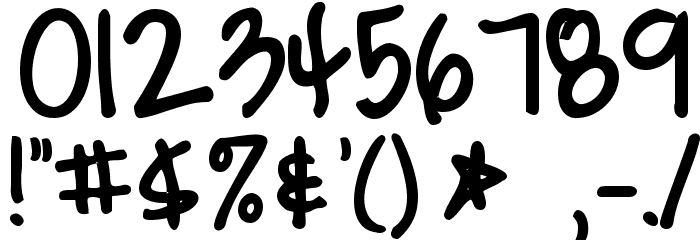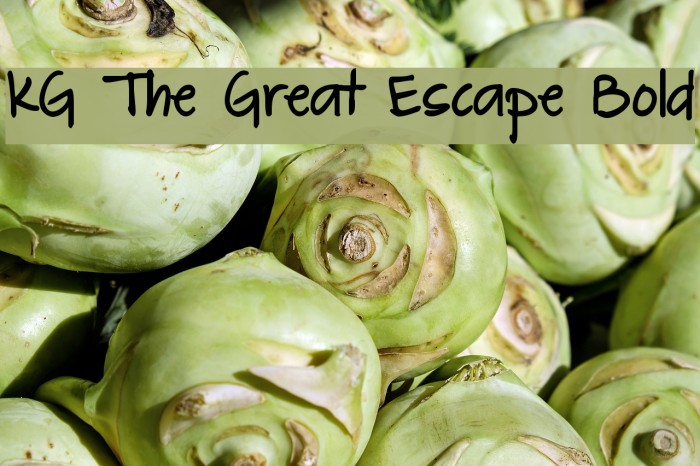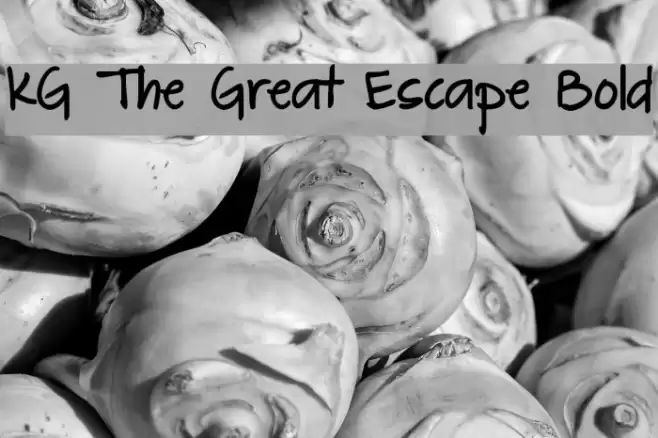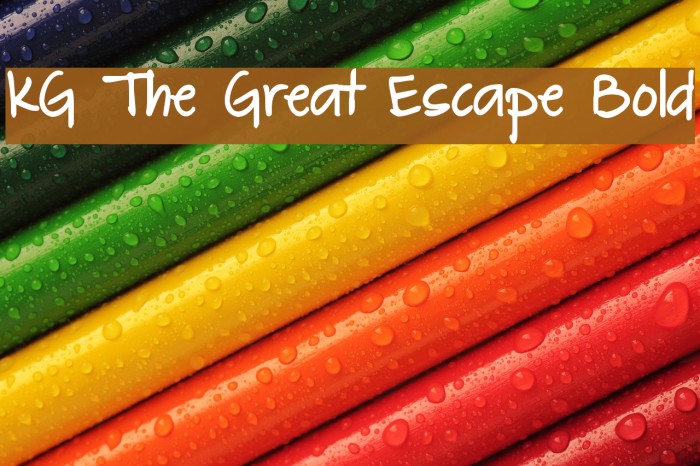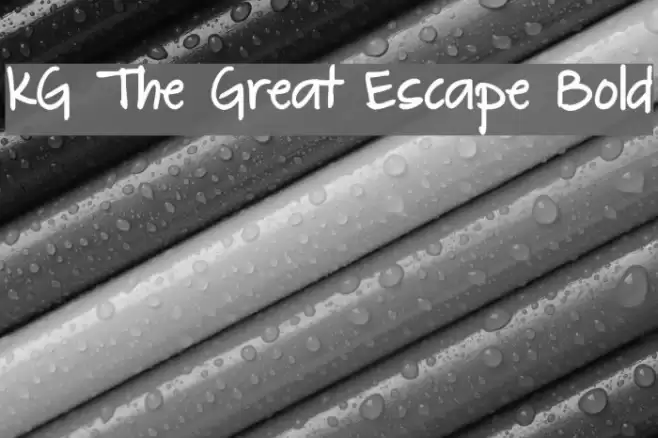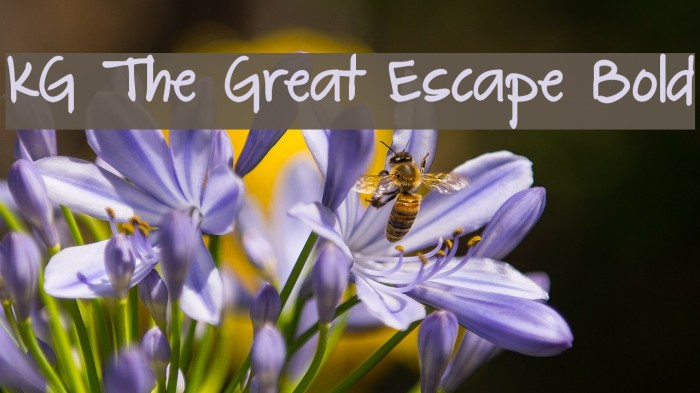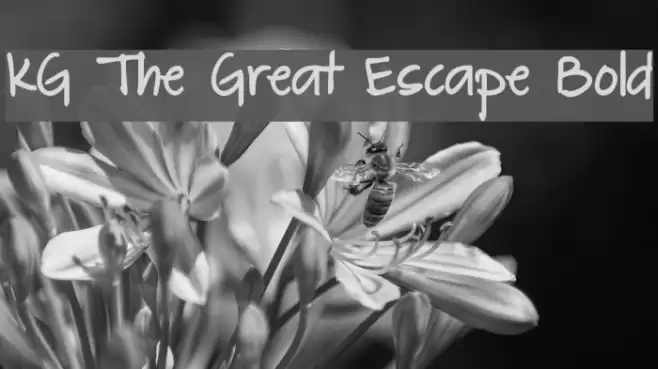
KG The Great Escape Bold Font
KG The Great Escape Bold Description
This font features a playful and energetic handwritten style, characterized by its bold and slightly irregular strokes. The letters have a casual, informal appearance, with a dynamic flow that suggests movement and spontaneity. The uppercase and lowercase letters maintain a consistent style, with rounded edges and a slight slant, adding to the font's approachable and friendly feel. The numerals and special characters are designed to match the overall aesthetic, ensuring a cohesive look across all text elements. This font is ideal for projects that require a personal touch or a sense of fun and creativity.
| Overall Style | Playful |
| Use Case | Headlines, Logos, Informal Text |
| Proposed Projects | Great for greeting cards, children's books, playful branding, and social media graphics. |